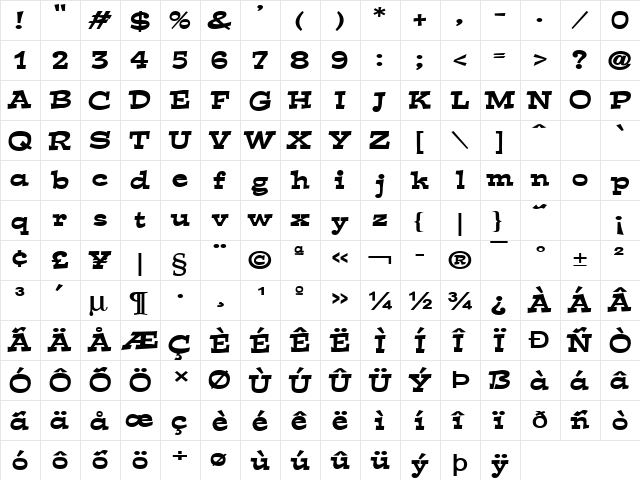
Expose Wide Bold
Design Context for Expose Wide Typeface
Expose Wide is a composed and adaptable typeface that performs quietly and consistently across a wide range of design contexts. Its bold stroke weight gives it real presence on the page.